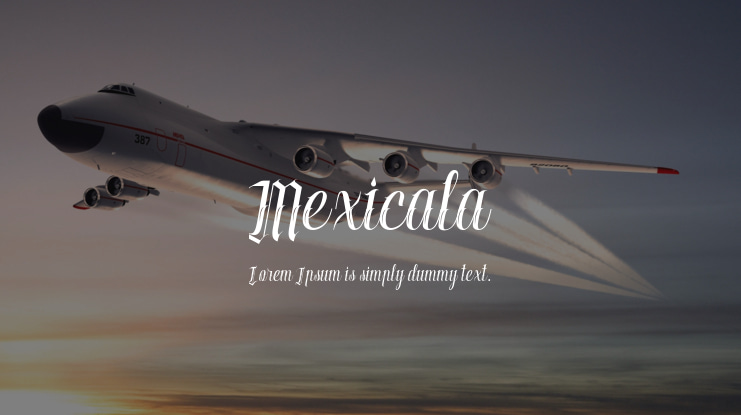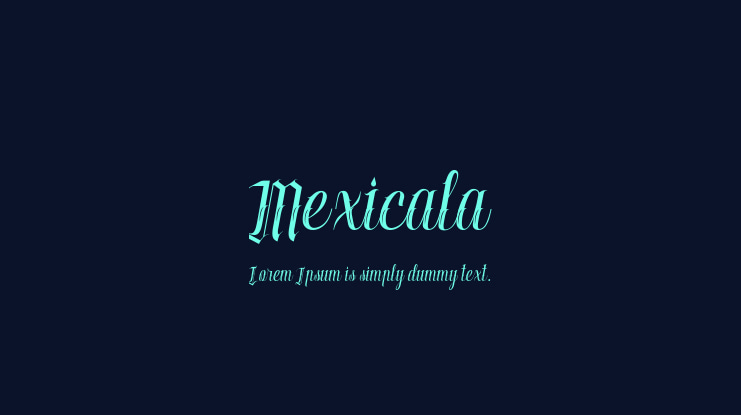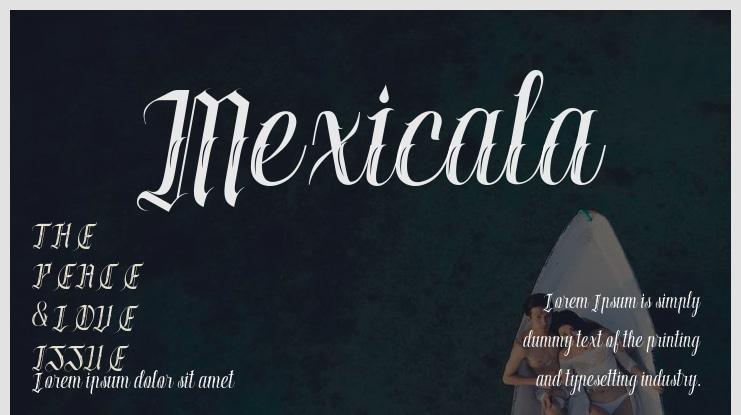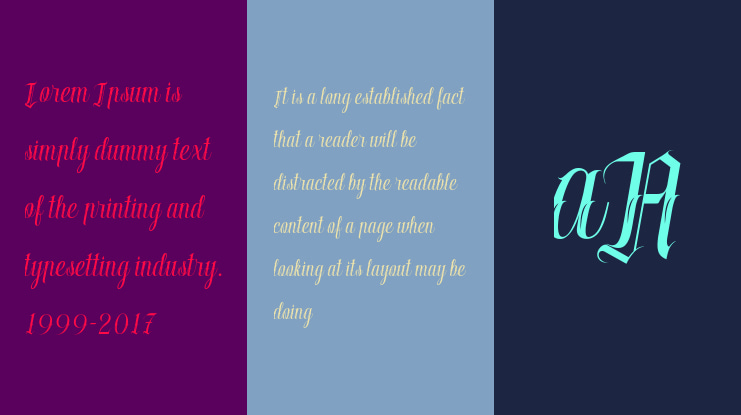
Mexicala Font
Discover Mexicala, a font that blends tradition and rebellion, capturing the essence of Mexican gangster culture and classic tattoo scripts. Ideal for those who seek bold and intricate designs, Mexicala is the perfect choice for projects that require authenticity and a touch of edge. Please note that this font demo is for personal use only and not permitted for commercial purposes.